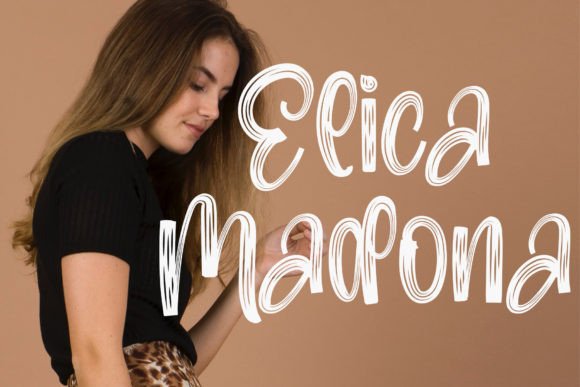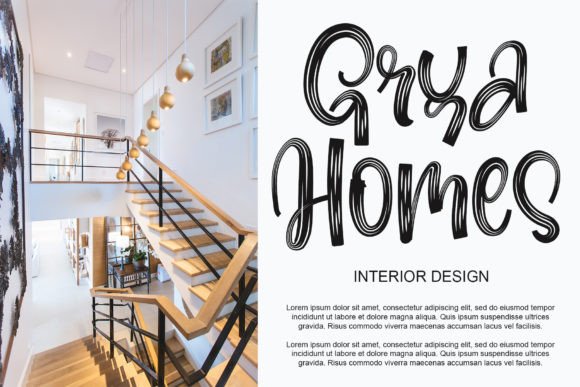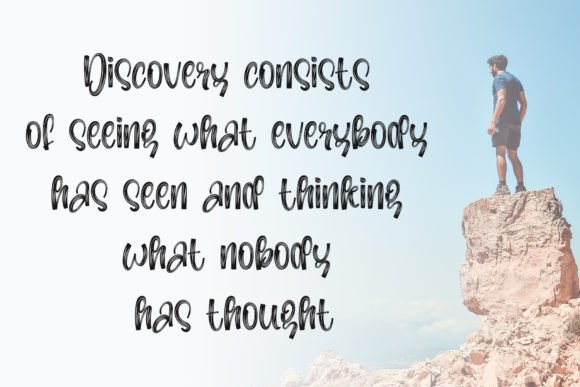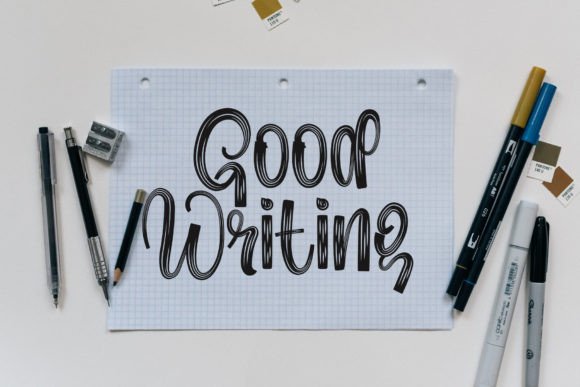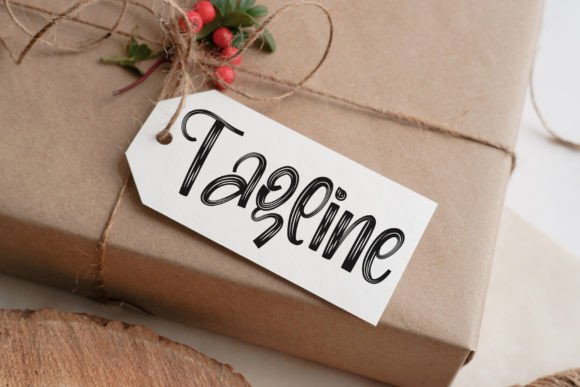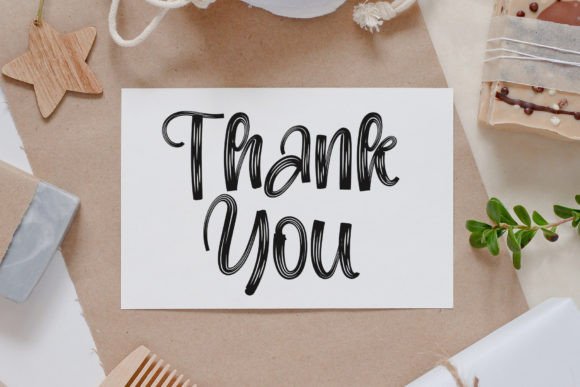
A First Impression: What I Love About Gingerly Font
Gingerly Font is a stylish handwritten font that exudes a contemporary atmosphere with impeccable form, inspired by timeless classic calligraphy. Here are a few things that immediately won me over:
- ✨ Balanced and varied: The font’s carefully crafted letters offer a beautiful balance and variation, making it perfect for a wide range of projects.
- ✅ Elegant and approachable: Gingerly strikes the perfect balance between elegance and friendliness, making it suitable for both formal and informal designs.
- 💫 Contemporary vibe: Despite being inspired by classic calligraphy, Gingerly has a distinctly modern feel that will elevate your designs.
Honest Review: A Few Quirks to Consider
No font is perfect, and Gingerly Font is no exception. Here are a few things to keep in mind:
- 🤔 Glyph limitations: While Gingerly has a wide range of glyphs, there might be some specialty characters or ligatures missing that you might find in more extensive font libraries.
- ⚠️ Pay attention to kerning: As with any font, especially handwritten ones, kerning can sometimes be a bit off. Make sure to adjust as needed for optimal readability and aesthetics.
The Story Behind Gingerly Font
Gingerly Font was crafted with the designer in mind. Inspired by the timeless beauty of classic calligraphy but infused with a modern twist, Gingerly aims to bring a touch of elegance and approachability to any project. The creator sought to develop a font that was not only beautiful but also versatile, capable of being used in a variety of contexts, from wedding invitations to brand logos.
Q: Is Gingerly Font suitable for body text?
A: While Gingerly Font is beautiful and highly readable, it’s primarily designed for headlines and short texts. For body text, consider a more straightforward font for optimal readability.